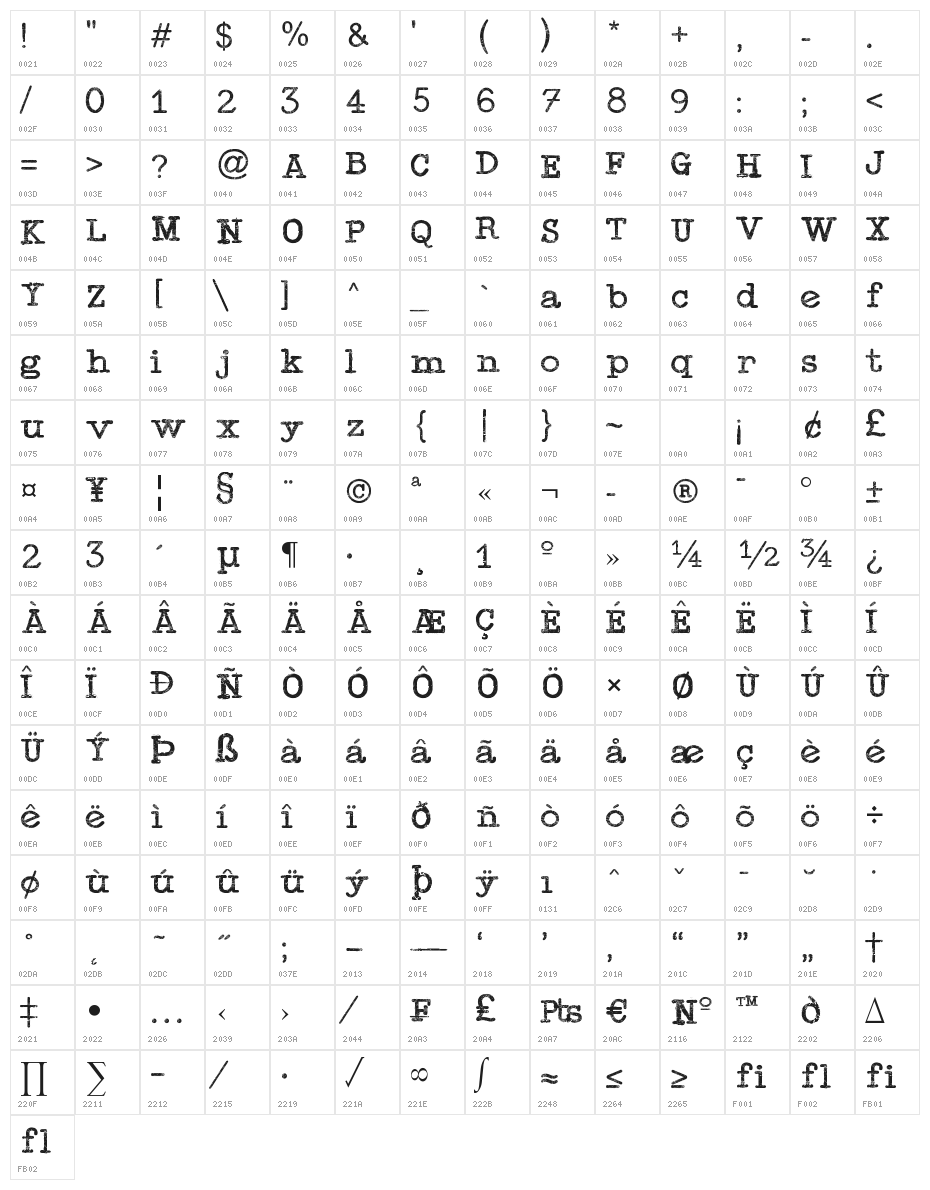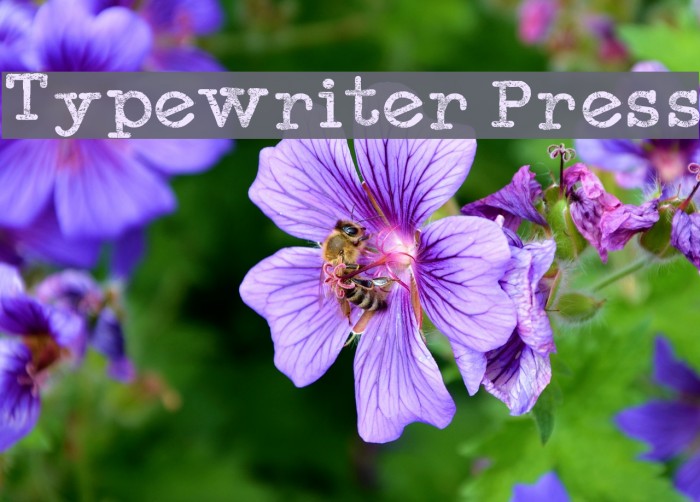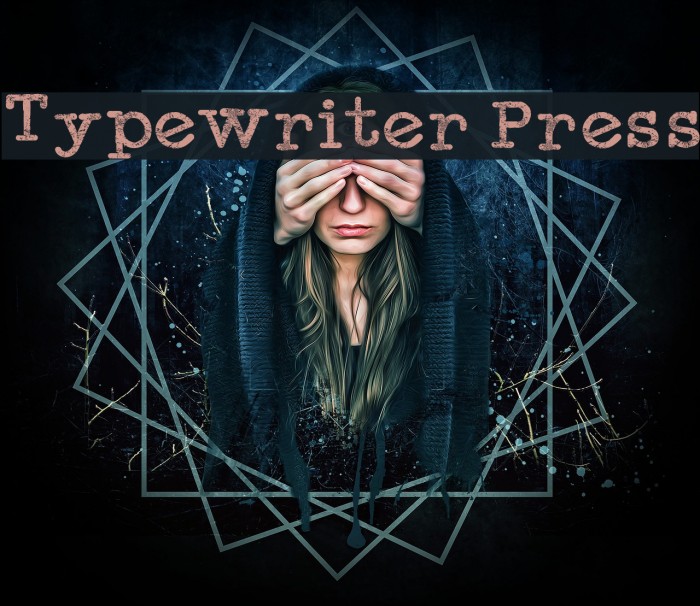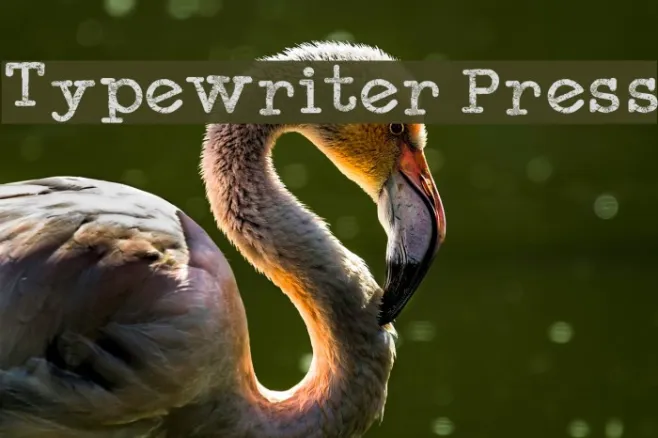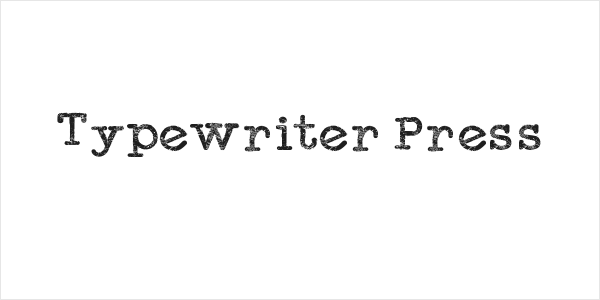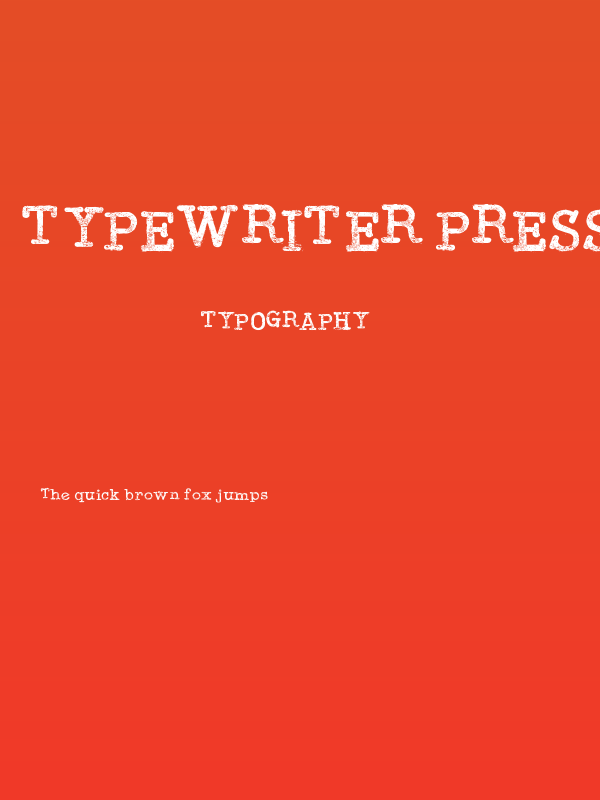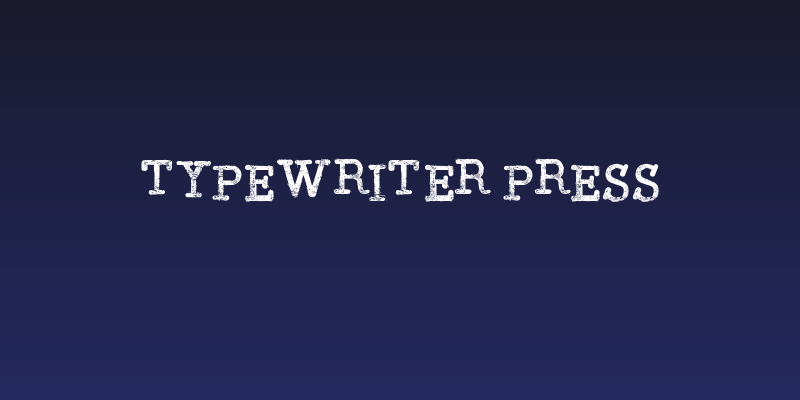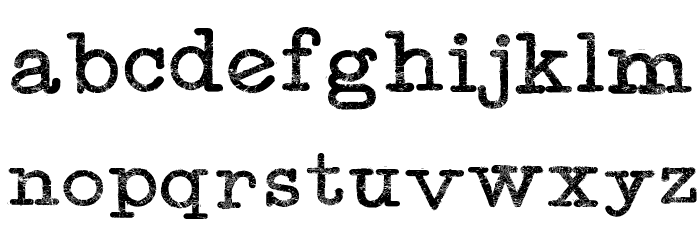
Typewriter Press Font
Typewriter Press Description
This font captures the nostalgic essence of vintage typewriters, featuring a distinct, textured appearance that mimics the look of ink pressed onto paper. The characters are monospaced, providing a uniform and mechanical feel, while the slightly irregular edges and subtle imperfections add to its authentic, retro charm. The uppercase and lowercase letters maintain a consistent style, with rounded serifs and a bold presence. Numbers and special characters are equally well-crafted, ensuring versatility across various applications. The font's unique style makes it ideal for projects that require a touch of old-world authenticity or a handcrafted aesthetic.
| Proposed Projects | Ideal for retro-themed designs, vintage posters, typewriter-inspired artwork, and creative branding projects. |